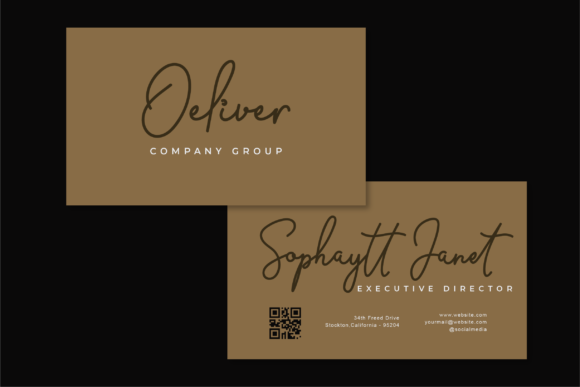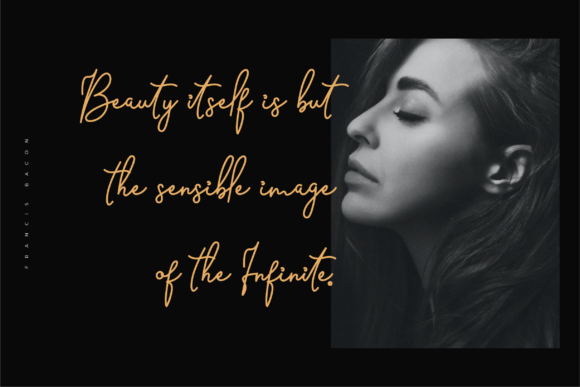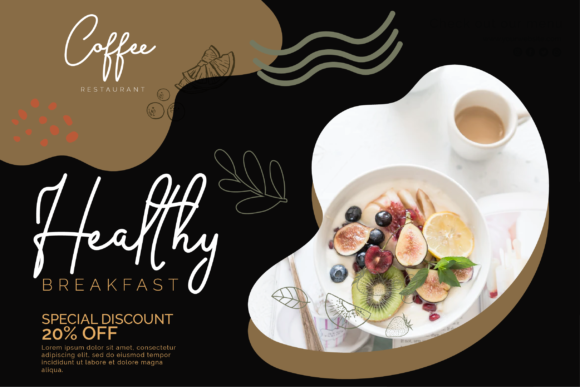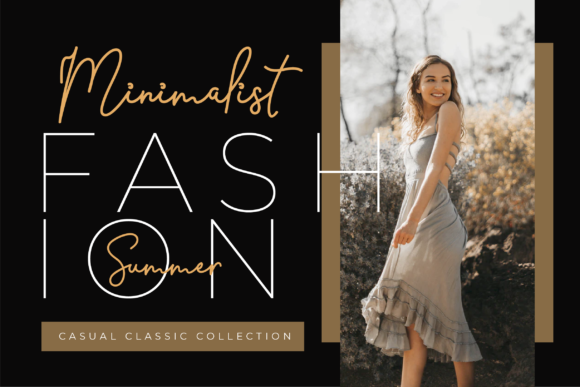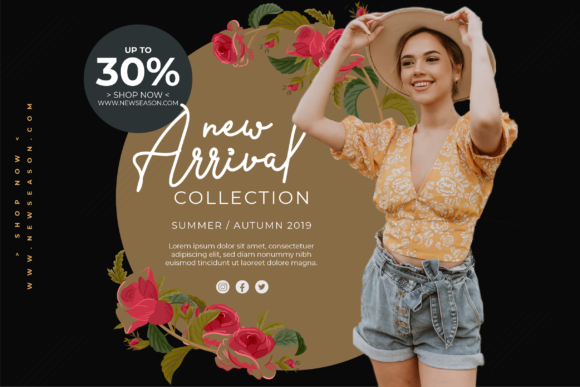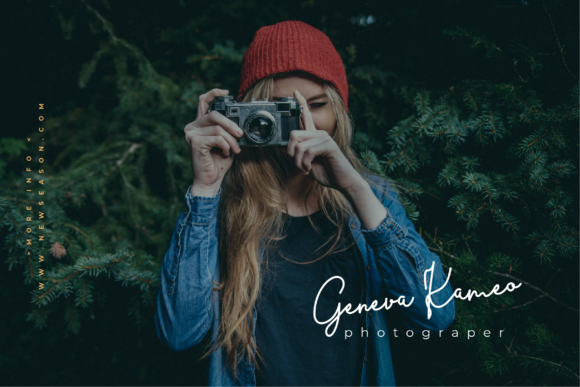
Introducing Barier Signature: The Epitome of Elegance in Handwritten Fonts
In the realm of typography, few fonts manage to convey elegance and sophistication as effortlessly as Barier Signature. This exceptional handwritten font distills refinement into a versatile and captivating design, perfect for a myriad of creative projects. Whether you’re a designer looking for the perfect addition to your arsenal or a crafter seeking to elevate your stationery, letterheads, or titles, Barier Signature is poised to become your go-to choice.
The Essence of Barier Signature
Barier Signature is more than just a font; it’s a statement of elegance and poise. Its handwritten strokes exude a sense of personal touch and warmth, making it instantly relatable and engaging. The beauty of Barier Signature lies in its simplicity and the fluidity of its design. Each letter is crafted with precision and care, ensuring that the font maintains a high level of readability while showcasing a unique character.
One of the standout features of Barier Signature is its incredible versatility. This font is not limited to a specific use case; instead, it can be seamlessly integrated into a wide range of projects. Imagine using Barier Signature for:
- Letterheads: Add a touch of sophistication to your professional correspondence with a font that commands respect and elegance.
- Titles: Elevate your headings and titles with a stylish and eye-catching font that captures attention.
- Stationery: Create beautiful, personalized stationery that reflects your unique style and personality.
- Branding: Use Barier Signature to develop a cohesive and luxurious brand identity that sets you apart.
Crafty Ideas with Barier Signature
For crafters and DIY enthusiasts, Barier Signature opens up a world of creative possibilities. Here are a few ideas to get you started:
- Handmade Cards: Add a personal touch to your greeting cards with beautifully styled text.
- Custom Invitations: Design elegant and sophisticated invitations for weddings, parties, and other special occasions.
- Personalized Gifts: Create customized gifts such as mugs, tote bags, and journals with stylish and meaningful text.
- DIY Stationery Sets: Develop complete stationery sets that include notepads, journals, and letter pads, all featuring Barier Signature.
Why Choose Barier Signature?
With so many fonts available, why should Barier Signature be your top choice? Here are a few compelling reasons:
- Elegance: Barier Signature embodies elegance and sophistication, making it perfect for projects that demand a high level of refinement.
- Versatility: Its versatility ensures that Barier Signature can be used across various projects, from professional to personal.
- Readability: Despite its elegant design, Barier Signature maintains excellent readability, ensuring your message is conveyed clearly.
- Uniqueness: Stand out from the crowd with a font that is both stylish and distinctive.
Barier Signature is not just a font; it’s a tool that can elevate your designs and projects to new heights of elegance and sophistication. Its versatility, combined with its stylish and readable design, makes it an invaluable asset for designers and crafters alike. Whether you’re looking to create professional letterheads, stylish titles, or personalized stationery, Barier Signature is the perfect choice. Embrace the elegance and versatility of Barier Signature and discover a world of creative possibilities.